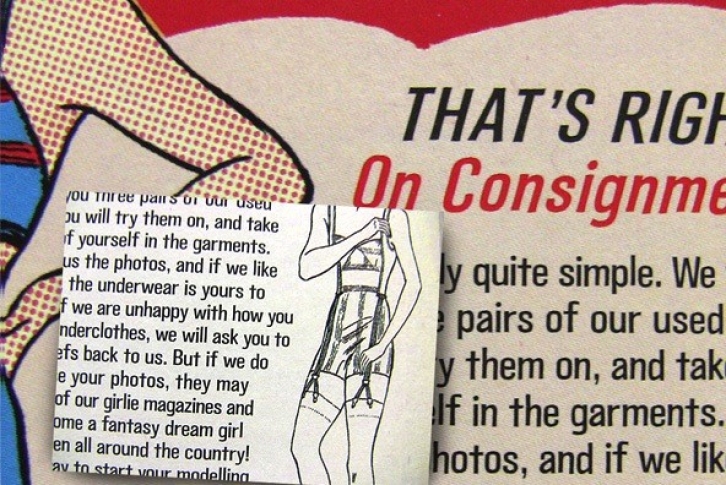
This font family is based on a New York type style used in advertising during the 1960s.
ALTERNATE CHARACTERS
An alternate "t" and "r" exists in all 6 Fling-a-Lingâ„¢ fonts. This allows you to set text with a little more variation, as sometimes different words look better with different combinations of these letters. Placement of these alternate characters was set up to allow Mac users to efficiently achieve these letters by simply typing "Shift-option" in succession with the letter.
The replaced characters (perthousand, caron, and Y-acute) are not available with this font family release, but will be included in a future OpenType version.
ABOUT THE WEIGHTS
When setting bolder text which is mostly lowercase, you might want to use the Fling-a-Lingâ„¢ Medium fonts, whose character outlines are slightly more defined and legible than their bolder counters. For setting mostly uppercase text, however, the Bold fonts are ideal
EURO READY
This is one of the first TypeArt® families to include the "Euro" symbol. Until the release of an OpenType version of this family, the Euro symbol is currently located in the "currency" character slot (Mac: shift-option-2, PC: Alt-0164).
FULL CHARACTER SET
Each font in the Fling-a-Lingâ„¢ family has a full character set of 232+ letterforms, with all characters designed in the style of the font.